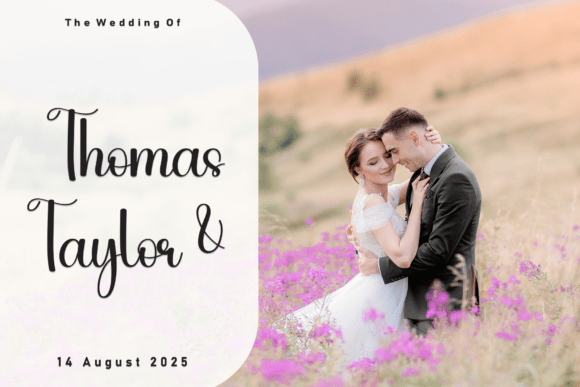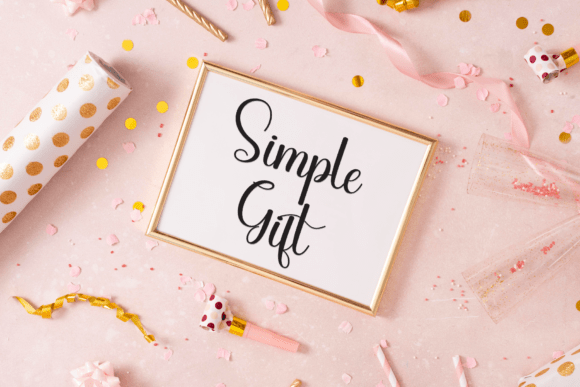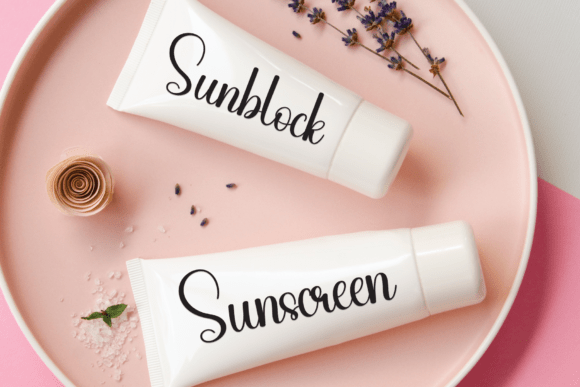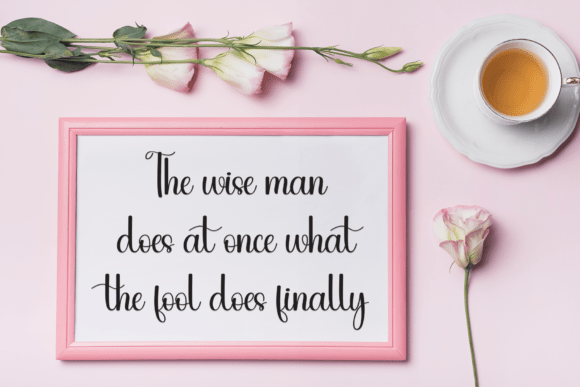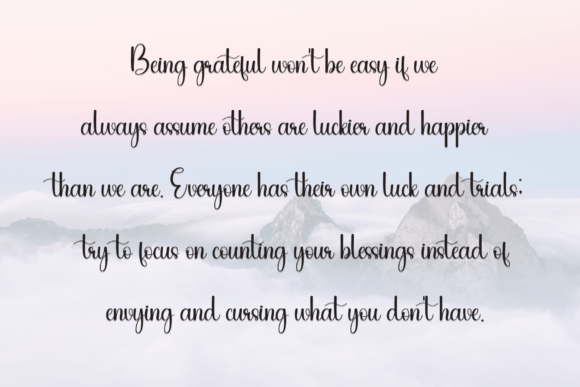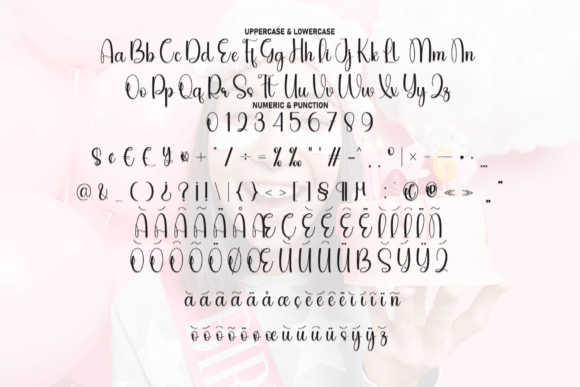
When Creativity Calls
As designers, we’ve all been there – staring at a blank canvas, searching for that elusive spark that sets our project ablaze. For many of us, it’s a moment of pure serendipity, where we stumble upon a font that perfectly captures the essence of our vision. This is precisely what happened when I discovered the Barbie Birthday Font.
This stylish script font exudes artistic flair and contemporary elegance, featuring fluid brush strokes, dynamic curves, and expressive letterforms that evoke the feeling of hand-painted calligraphy with a modern twist. The Barbie Birthday Font is a game-changer for designers, adding a creative and sophisticated touch to any design, from logos and invitations to packaging and social media graphics.
Whether you’re a seasoned pro or just starting out, the Barbie Birthday Font is an invaluable addition to your design toolkit, offering both visual impact and versatility that’s sure to elevate your next project.
Key Features of Barbie Birthday Font
- Font Family: The font is a custom, cursive font designed specifically for birthday celebrations, with a feminine and playful touch.
- Unique Characteristics: The font features a distinctive, flowing script style with a mix of uppercase and lowercase letters, making it perfect for creating eye-catching birthday invitations and decorations.
Barbie Birthday Font Review
Overall, I think the “Barbie Birthday Font” is a cute and playful font that could be great for specific projects. Here’s my honest review.
- ✨ The font is very readable, even at smaller sizes.
- ✨ It’s perfect for adding a touch of whimsy to birthday invitations or party decorations.
- ✨ The font comes in a variety of styles, including bold and italic options.
- ⚠️ The font may not be suitable for formal or professional projects, as it’s quite childish and playful.
- ⚠️ It may be difficult to pair with more serious or complex designs.
- ⚠️ Some users may find the font too cursive or swirly.
I think the “Barbie Birthday Font” is a fun and creative option for specific projects, but it’s not for everyone. If you’re looking for a playful and whimsical font for a birthday or party design, this might be a great choice. However, if you’re working on a more formal or complex project, you may want to consider other options.
The Barbie Birthday Font is perfect for:
- Birthday invitations and party decorations.
- Children’s clothing and accessory designs.
- Themed party decorations and accessories.
For the most out of the Barbie Birthday Font, use it in bold and playful combinations with other fonts and colors to create a fun and festive atmosphere.